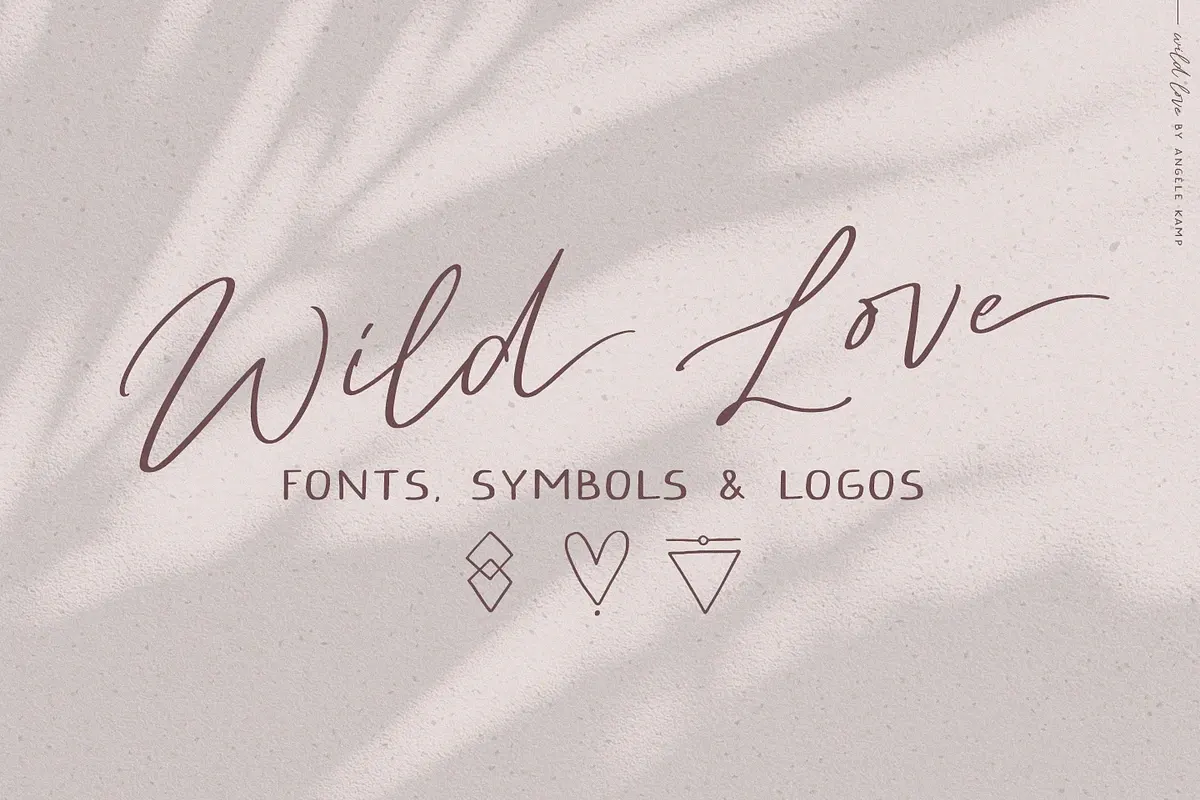
Script font Wild Love logos Free Download
Wild Love Font Free Download is a romantic and expressive script typeface designed to bring a handwritten, heartfelt touch to your design projects. With flowing curves, natural ligatures, and a charming handmade feel, Wild Love is perfect for logos, wedding stationery, product packaging, social media posts, and branding that needs a soft, feminine edge.
Crafted with elegance and authenticity, Wild Love Font Free Download includes pre-made logo templates that make it easy to create stunning visuals in minutes. Whether you're building a personal brand, launching a boutique business, or designing dreamy quotes, this font adds a unique personality and warmth.
Wild Love pairs beautifully with minimalist sans-serifs or delicate serif fonts, allowing you to create layered, stylish typographic combinations. Its versatility makes it a go-to choice for designers who want both beauty and functionality.